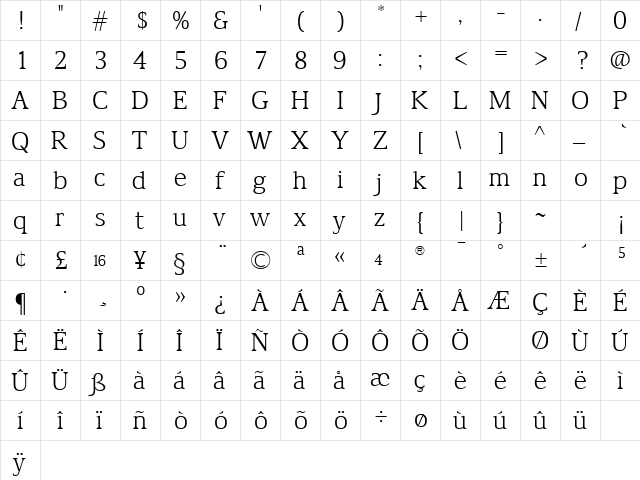
TFArdent Regular
Design Context for TFArdent Typeface
TFArdent is a composed and adaptable typeface that performs quietly and consistently across a wide range of design contexts.